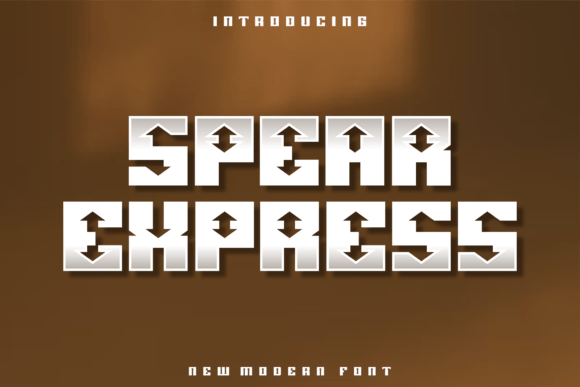
Unlock the Gateway to Distinction with Spear Express Font: Your Key to a Standout Modern CV
In a world clamoring for attention, your CV is your passport to success, a gateway to your dream job. Spear Express Font is the ultimate tool to craft a modern CV that commands attention and leaves a lasting impression. With its bold and authentic decorative strokes, Spear Express Font propels your CV to new heights of professionalism and style.
Spear Express Font: The Epitome of Modernity and Sophistication
In today's competitive job market, your CV is your chance to shine. Spear Express Font empowers you to create a CV that exudes modernity and sophistication, setting you apart from the crowd. Its striking visual appeal captivates the reader from the first glance, creating an immersive experience that highlights your skills and experience in an unforgettable way.
Spear Express Font: Adaptable to Your Unique Style
Spear Express Font is not just a font; it's a versatile chameleon, seamlessly adapting to your unique style and preferences. Whether you're aiming for a minimalist aesthetic or a bold and vibrant look, Spear Express Font effortlessly complements your vision. Unleash your creativity and let your personality shine through each carefully chosen letter.
Spear Express Font: The Perfect Ally for Branding Projects
Beyond CVs, Spear Express Font is your trusted companion in a myriad of branding endeavors. Its bold strokes and authentic charm make it ideal for logos, t-shirt printing, and export projects. Spear Express Font breathes life into your designs, transforming them into captivating expressions of your brand's identity.